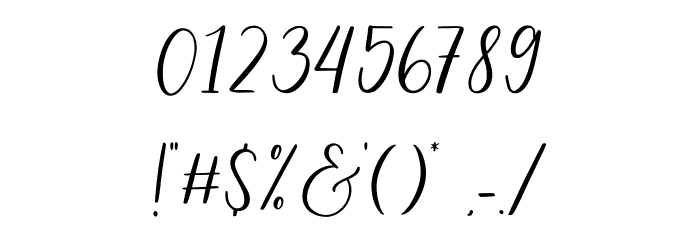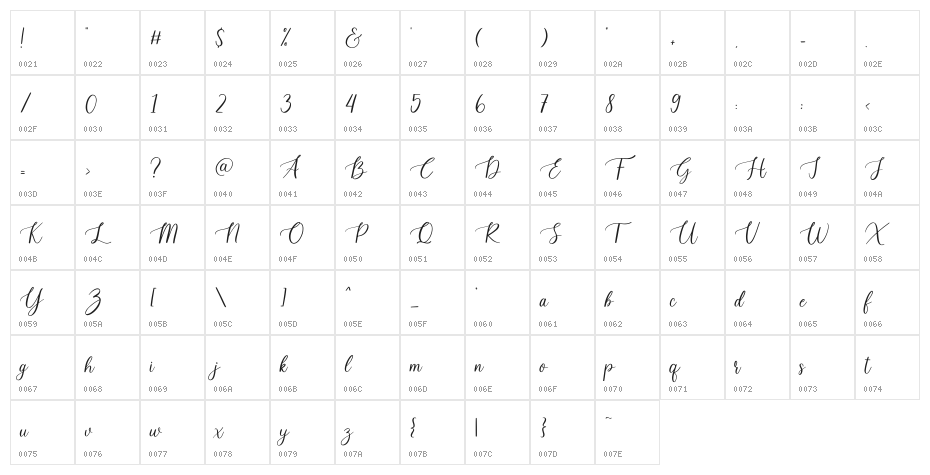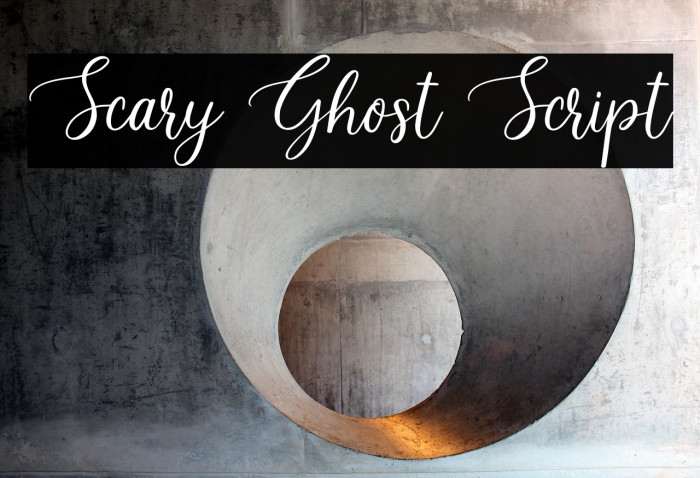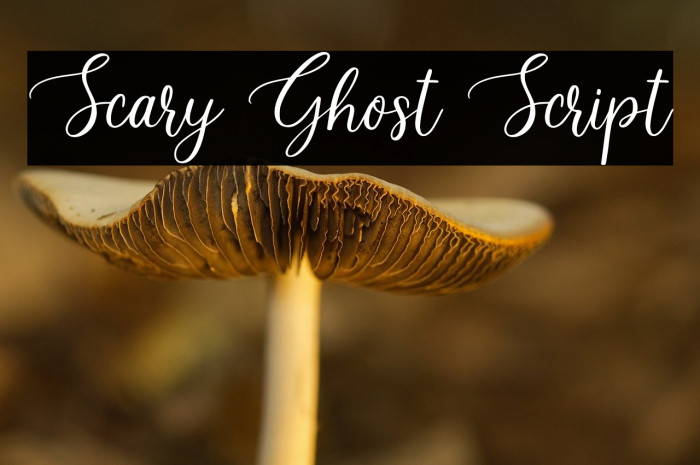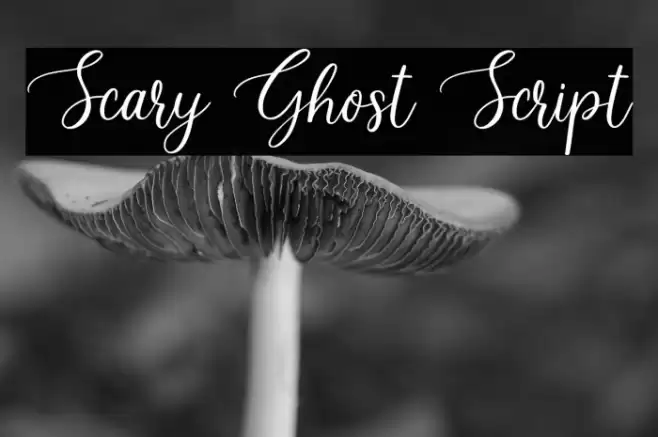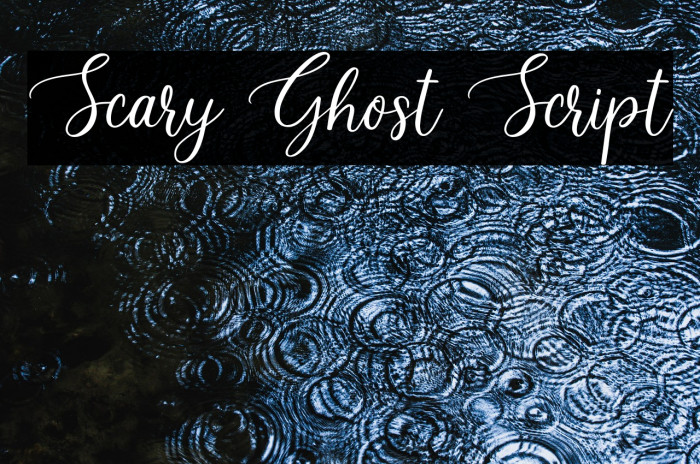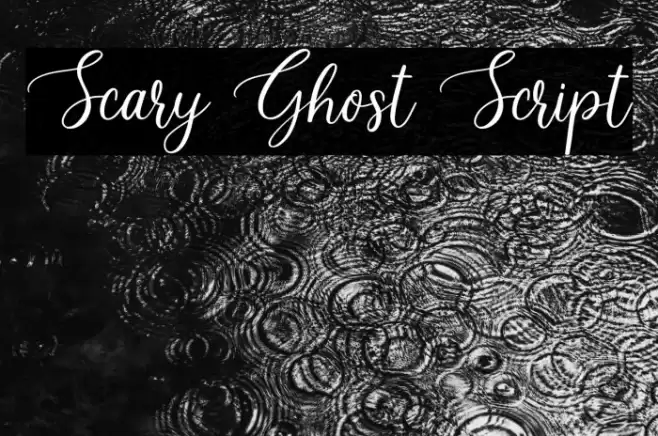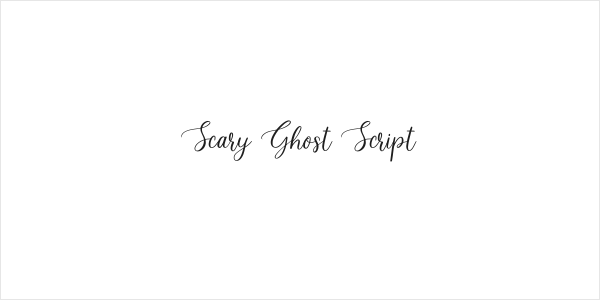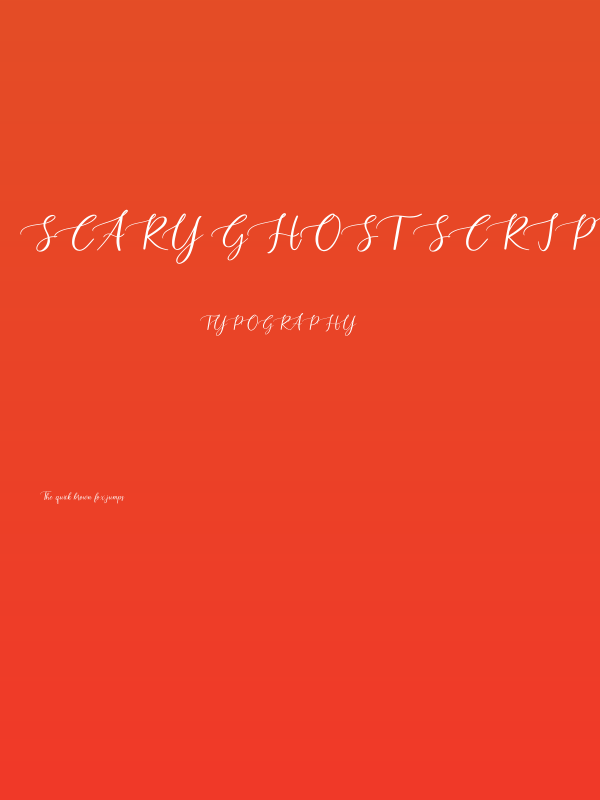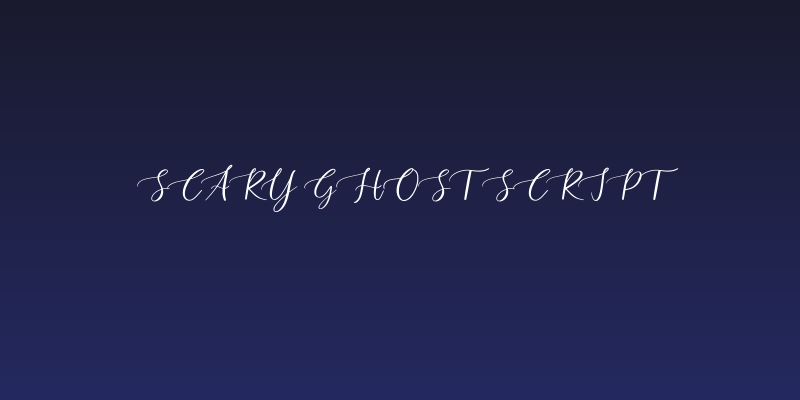
Scary Ghost Script Font
Scary Ghost Script Description
This elegant script font features a flowing, cursive style with a touch of whimsy. The uppercase letters are intricately designed with sweeping loops and flourishes, giving them a sophisticated and artistic appearance. The lowercase letters maintain a consistent flow, enhancing readability while retaining an artistic flair. The numerals are stylish and complement the overall script aesthetic. Special characters are thoughtfully crafted to match the font's graceful style. This font exudes a sense of elegance and creativity, making it suitable for a variety of design projects.
Use CaseLogos, Invitations, Decorative text
Proposed ProjectsIdeal for wedding invitations, elegant branding, greeting cards, and decorative quotes.